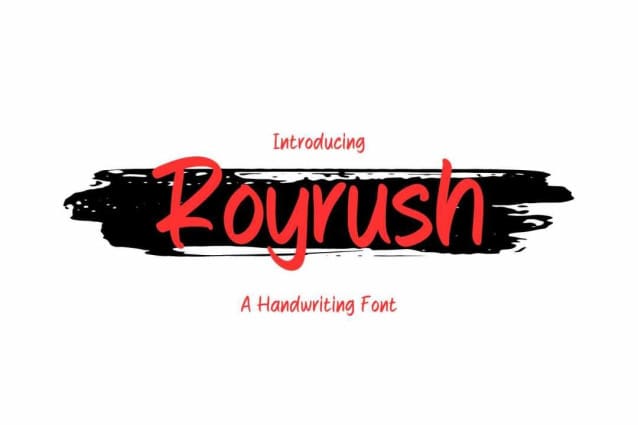
Royrush Hand Font
Royrush Hand Font is a simple handwritten script, created in a random and free style. It is suitable for logos, header fonts, corporate identity, branding, apparel, posters, music, movies, games, magazines, books, comics, cartoons, YouTube, Instagram, websites or any of your creative design projects.